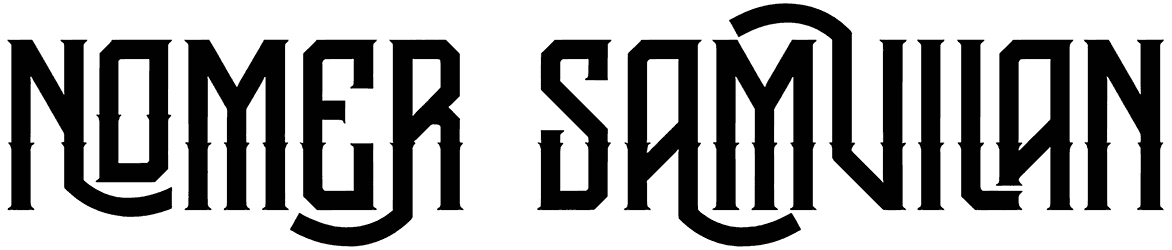
Nomer Samvilan Font
If you think Victorian fonts are no longer in style, Nomer Samvilan is here to show you how wrong you are. Case in point, any brand of clothes represented with these vintage letters of Nomer Samvilan will be regarded as the highest quality.
Once the retro charm of this small-caps font is felt in your design, you’re set for glory. Whether you use it for cafe signs or shoe store business cards, you’ll be considered the best in your business.